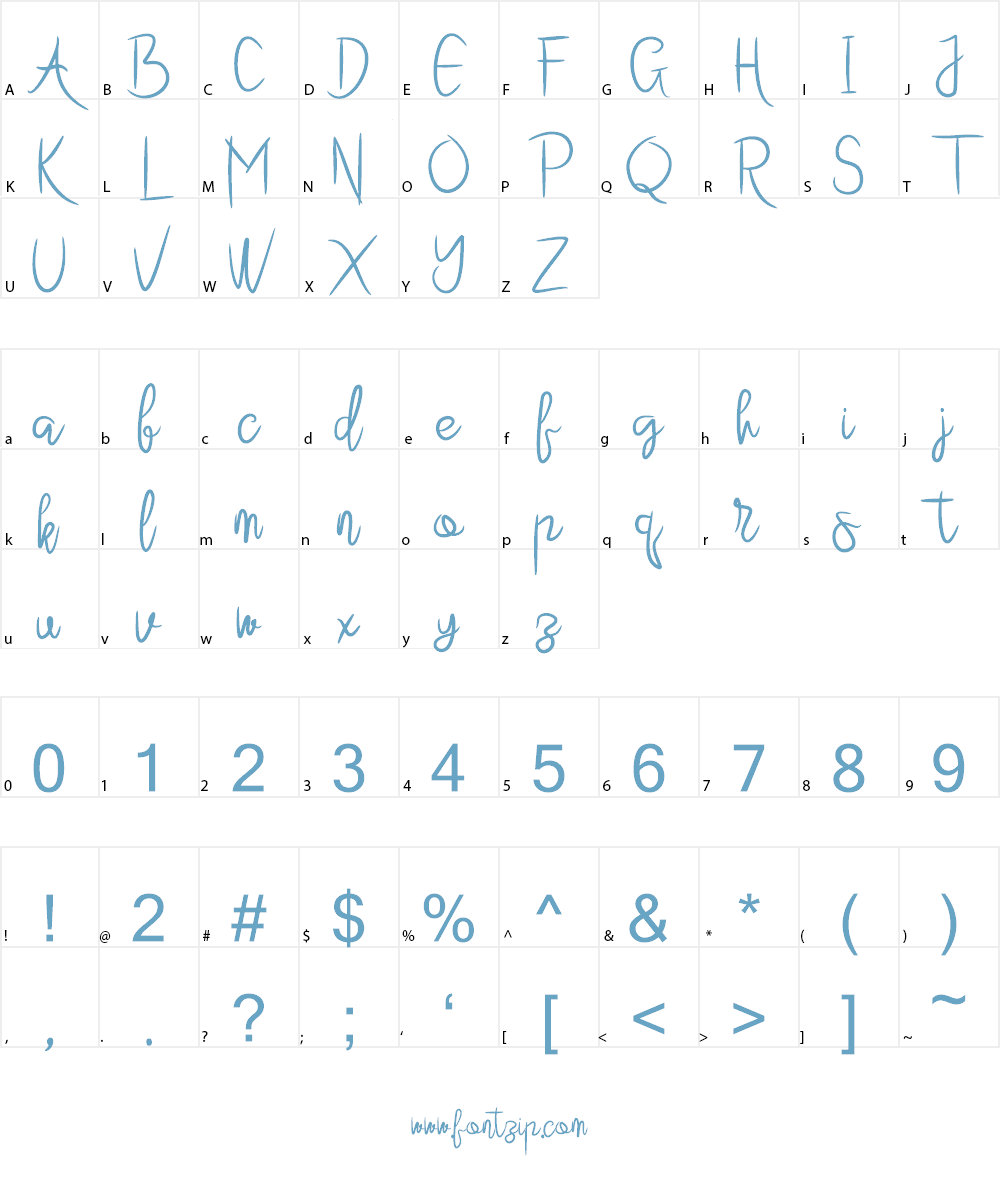
Adhelphia is a casual script font that has a semi-bounce style that gives a modern and dynamic touch to your design.
This font is made by NoerHadi and is suitable for use on invitations, wedding designs, posters, branding and much more!